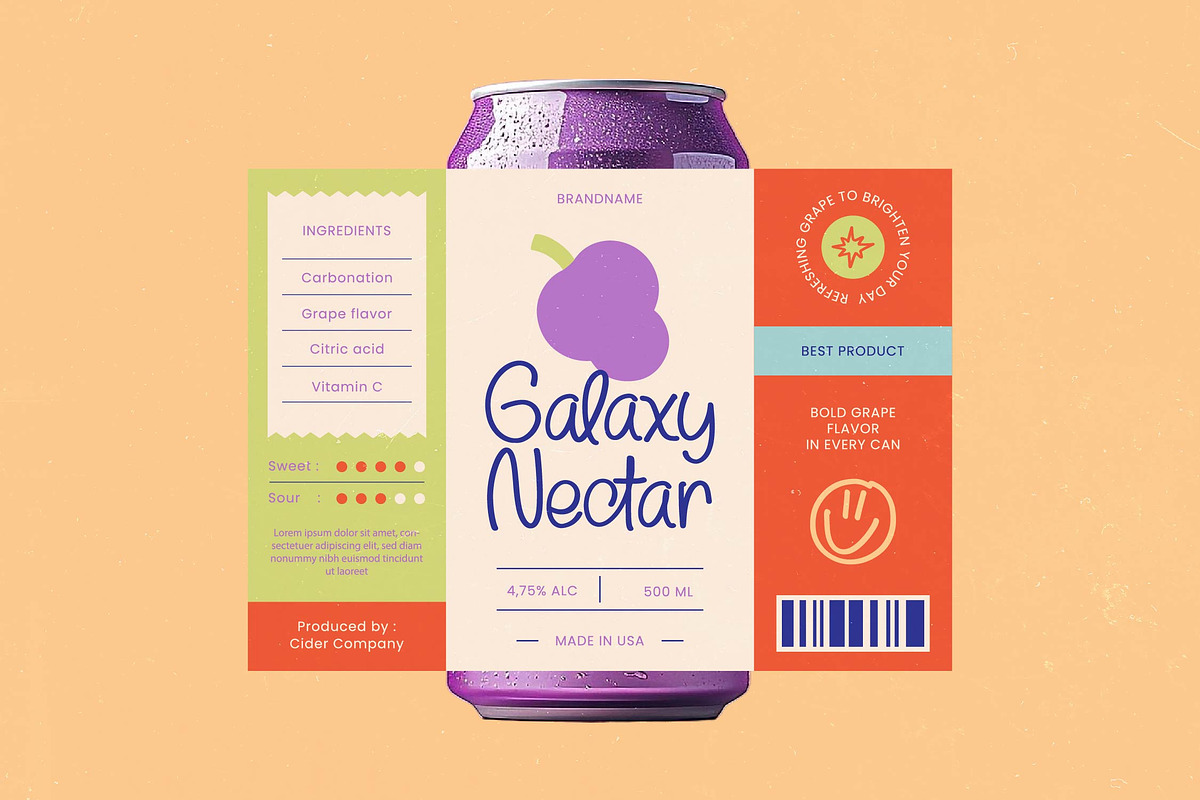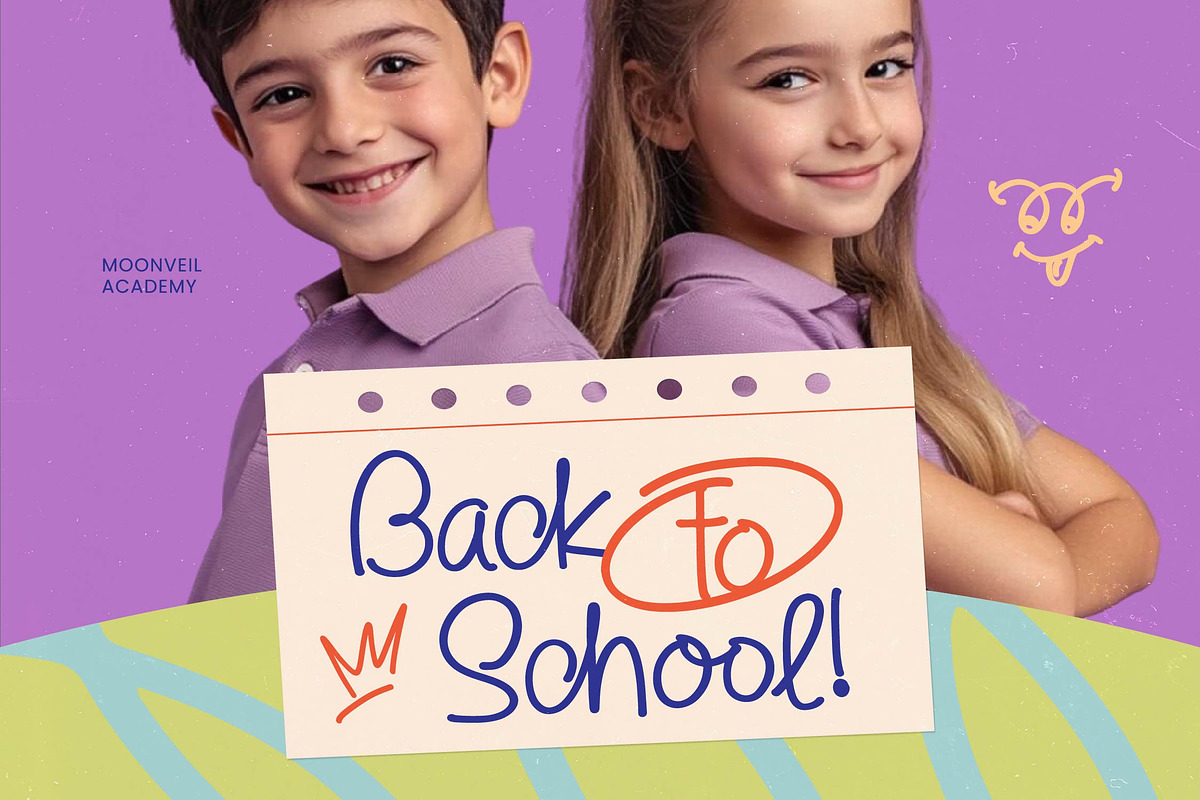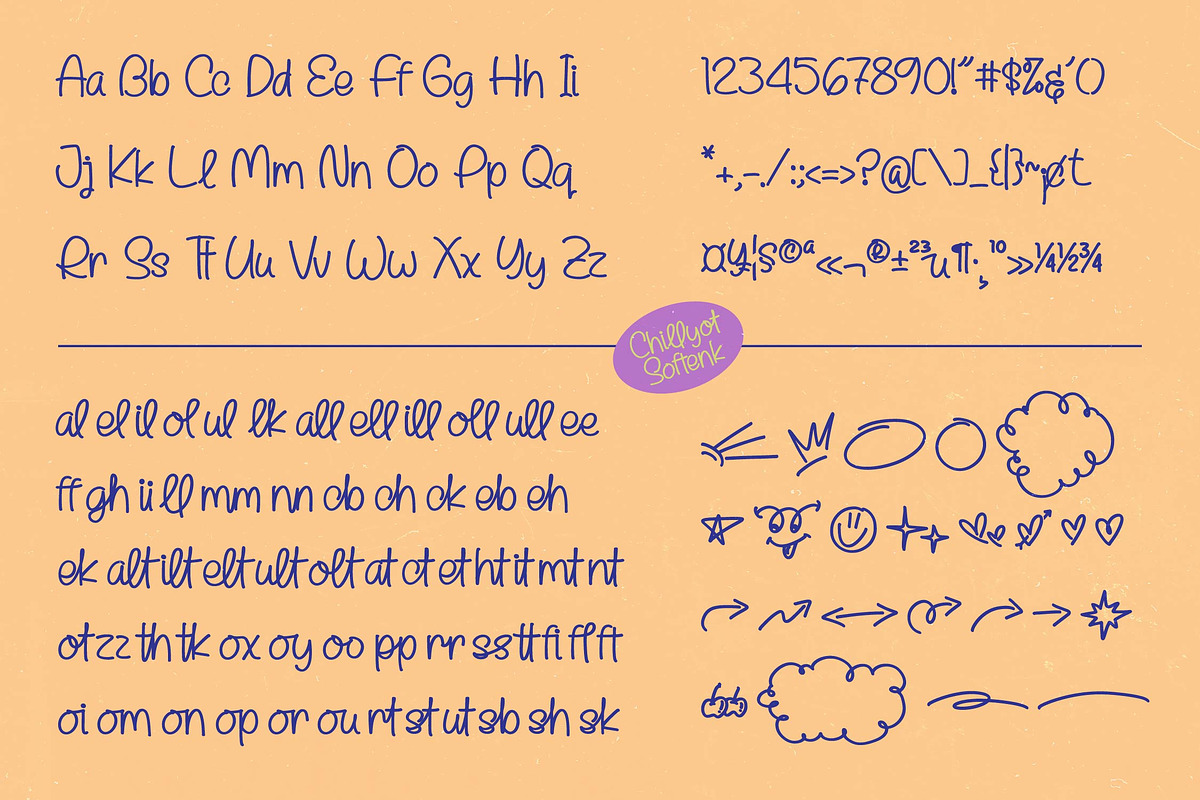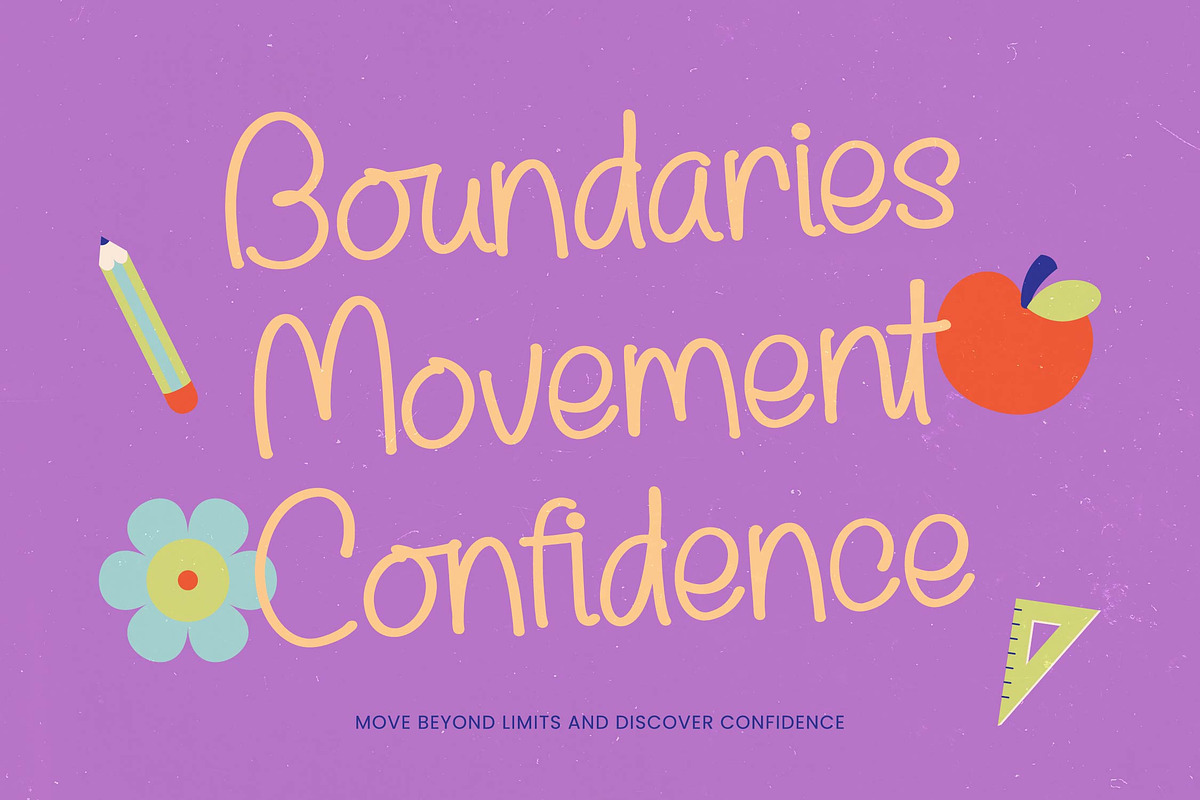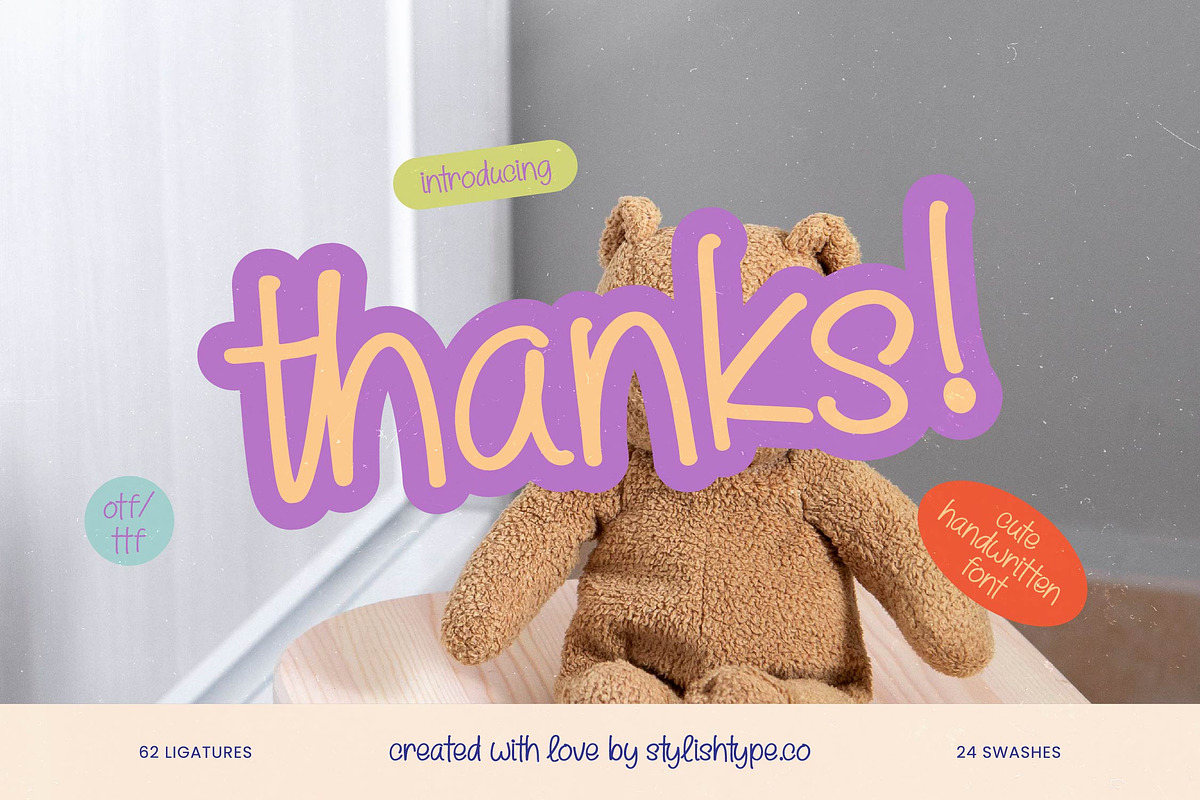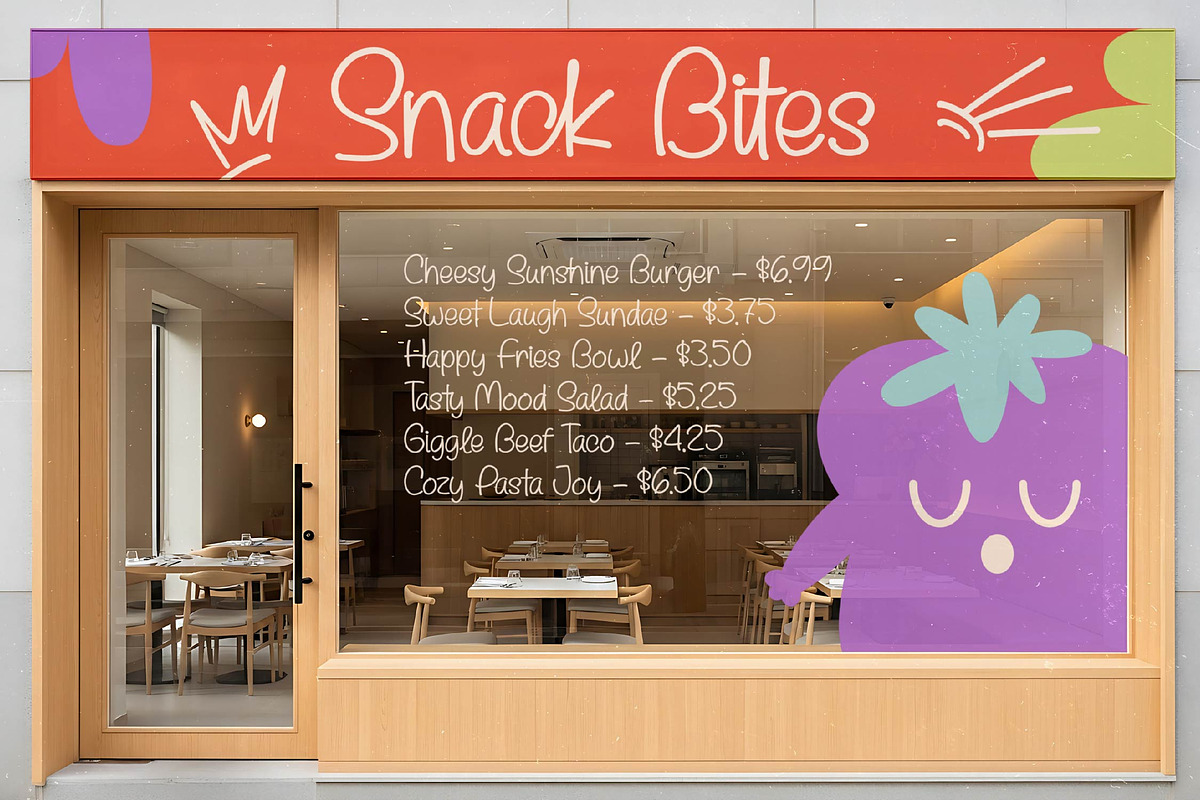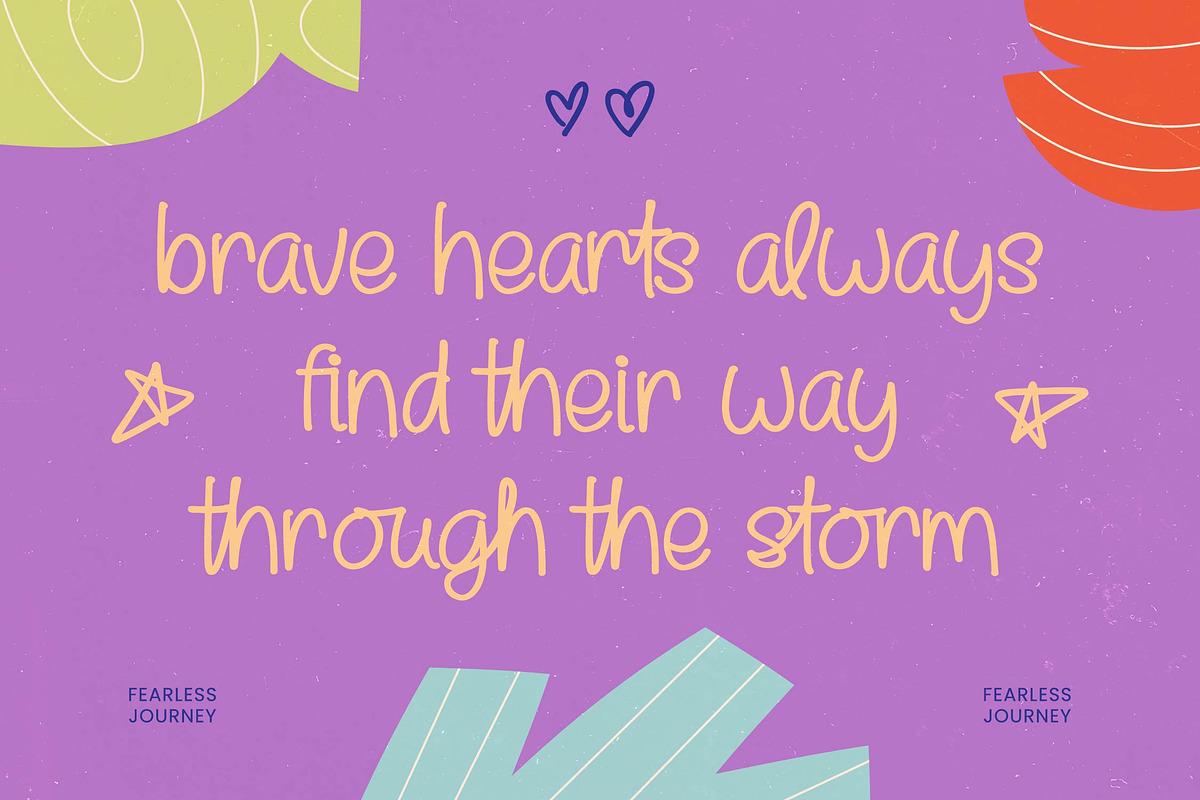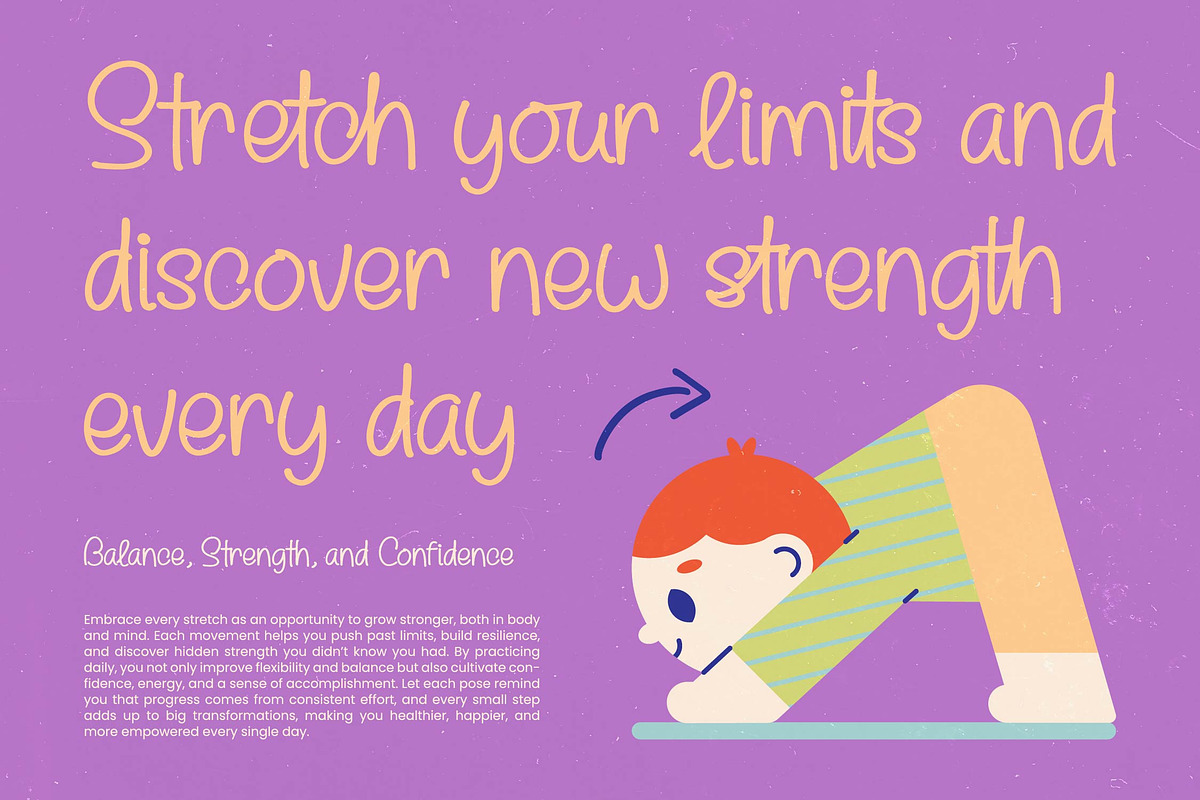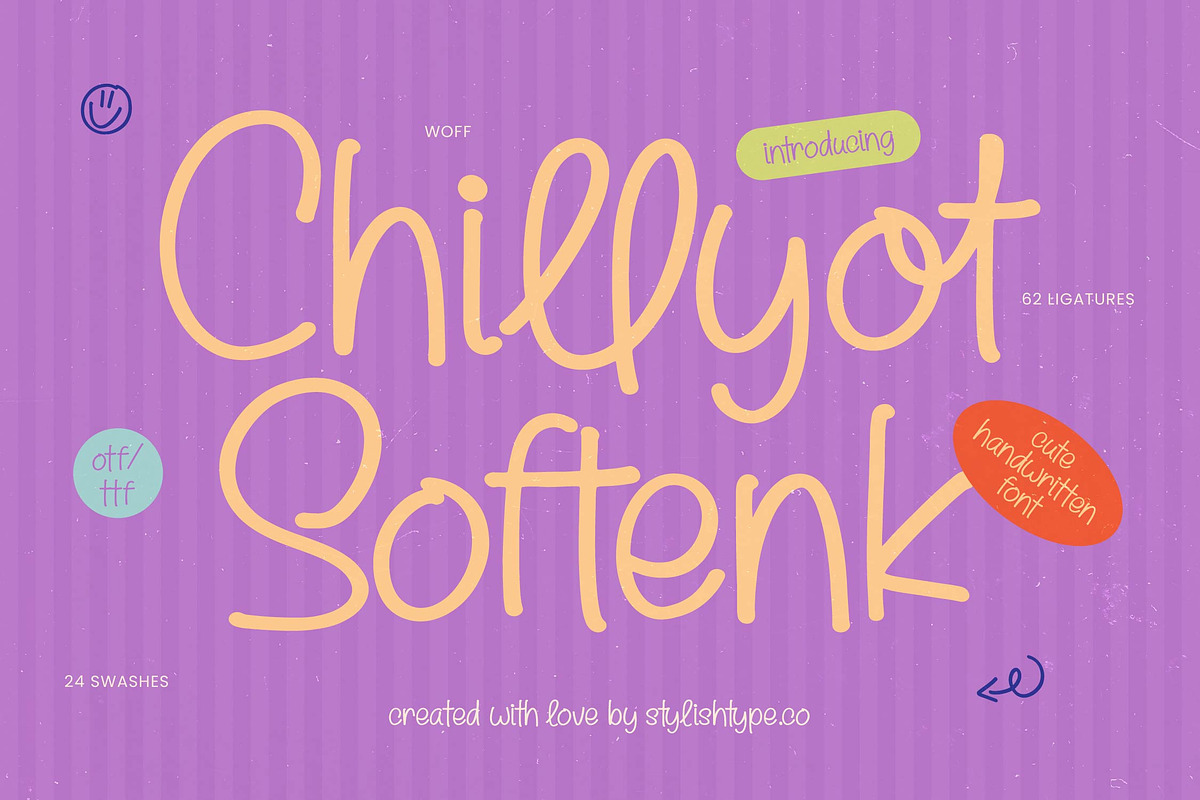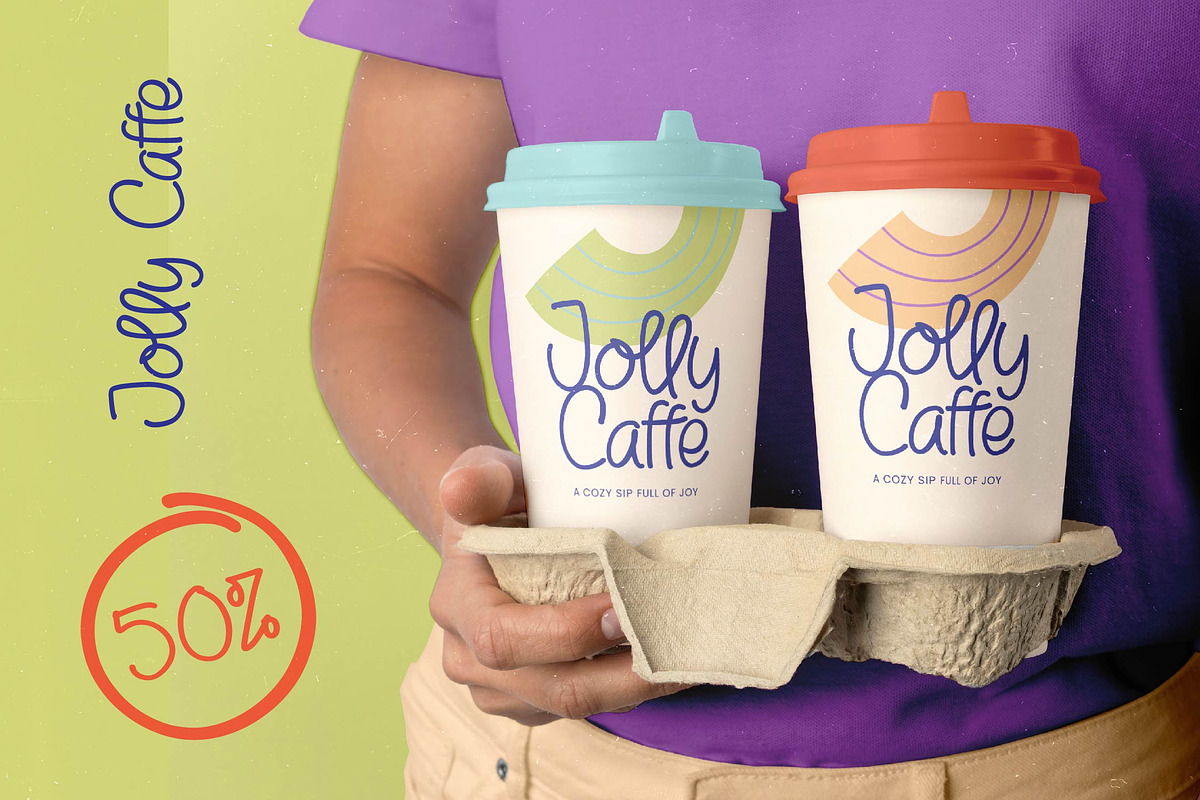
Chillyot Softenk Cute Handwritten
Chillyot Softenk - Cute Handwritten Font , Elevate your design projects with the whimsical charm of Chillyot Softenk - Cute Handwritten Font. This premium monoline typeface offers an organic, handcrafted aesthetic that balances playfulness with professional legibility. Its fluid strokes and soft curves create a welcoming atmosphere, making Chillyot Softenk - Cute Handwritten Font an essential tool for designers seeking to add a personal, authentic touch to their digital and print media.
Boasting an impressive 62 custom ligatures and 24 decorative swashes, Chillyot Softenk - Cute Handwritten Font provides unparalleled typographic variety. These features allow for a truly bespoke design experience, ensuring that every word feels unique and hand-drawn. Whether you are crafting intricate logos or engaging social media graphics, Chillyot Softenk - Cute Handwritten Font delivers the creative flexibility required for high-impact visual storytelling.
Global accessibility is at the heart of this typeface’s design philosophy. With its extensive multilingual support, Chillyot Softenk - Cute Handwritten Font adapts seamlessly across global markets, making it incredibly versatile for international projects. This cross-cultural adaptability ensures your message remains consistent and charming, regardless of the language, providing a cohesive brand identity on a worldwide scale.
Discover the perfect solution for lifestyle branding, creative packaging, and editorial design with this versatile script font. It is perfect for boutique shop identities, greeting cards, children’s book covers, and social media banners where a friendly, approachable vibe is paramount. By choosing Chillyot Softenk - Cute Handwritten Font, you invest in a high-quality design asset that effortlessly bridges the gap between playful creativity and commercial sophistication.